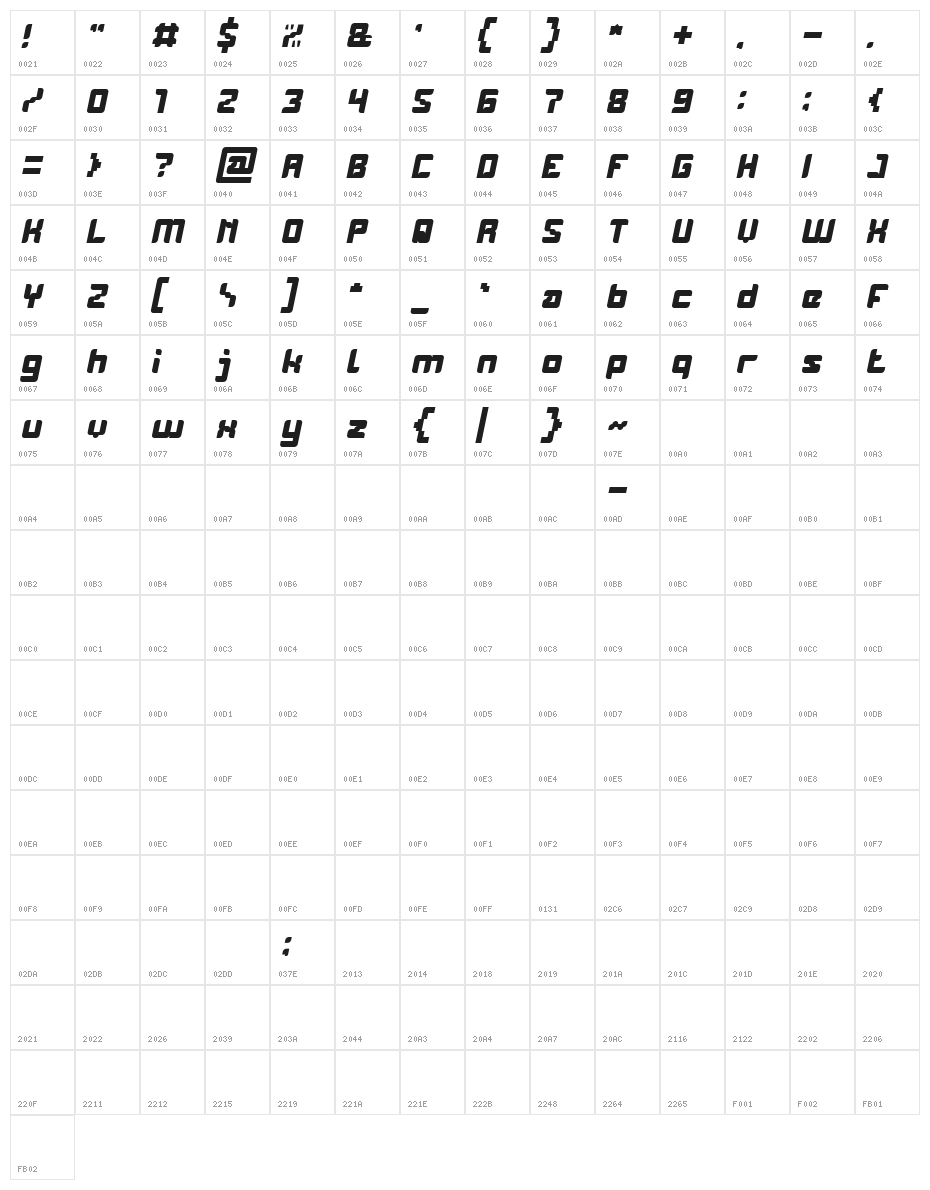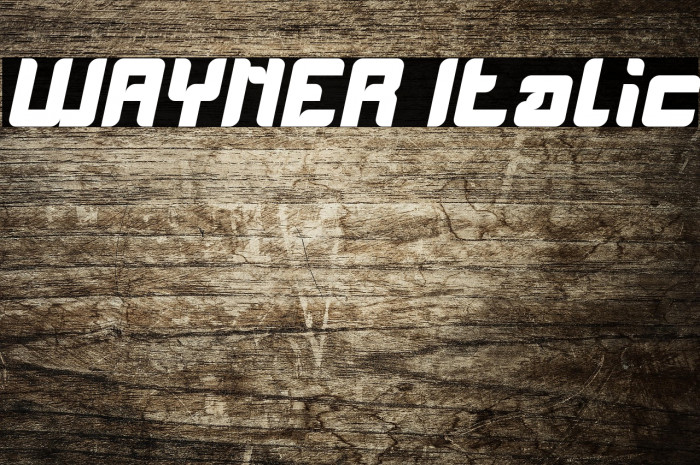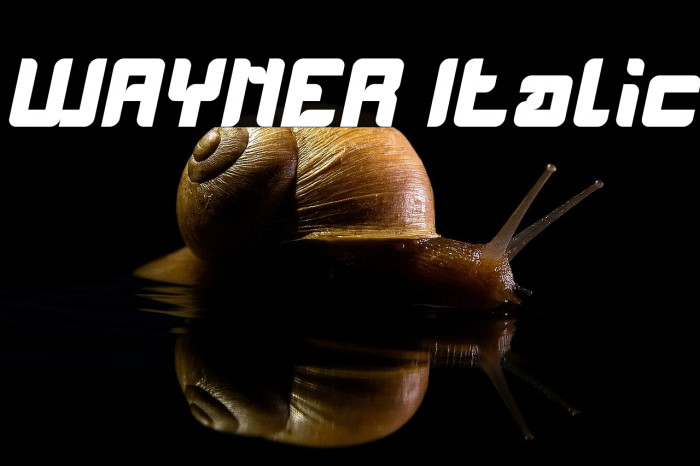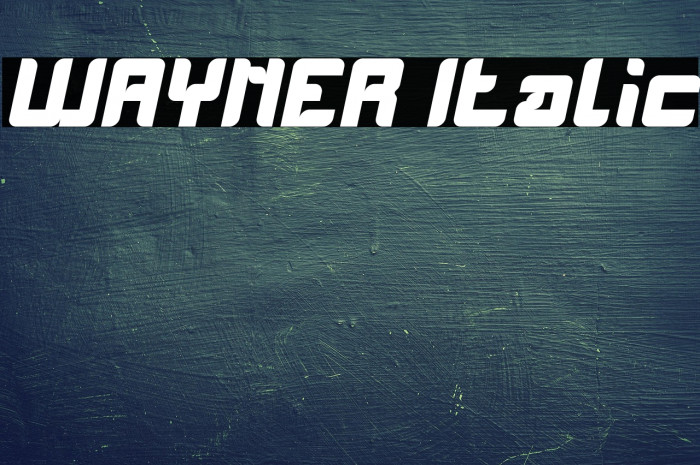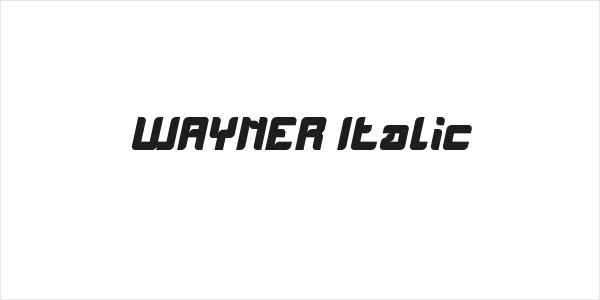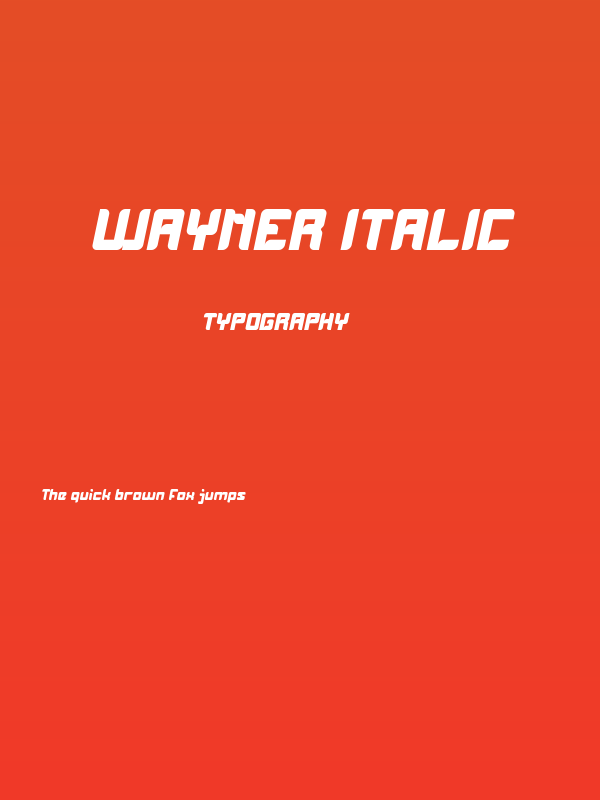
WAYNER Italic Font
WAYNER Italic Description
This font features a bold, italicized style with a modern and futuristic appearance. The characters have a distinct slant, giving them a dynamic and forward-moving look. The strokes are thick and consistent, providing a strong visual impact. The design includes rounded edges and a slightly condensed width, which adds to its sleek and streamlined aesthetic. The font maintains a uniform character spacing, ensuring readability while retaining its unique style. It is well-suited for projects that require a bold and contemporary feel.